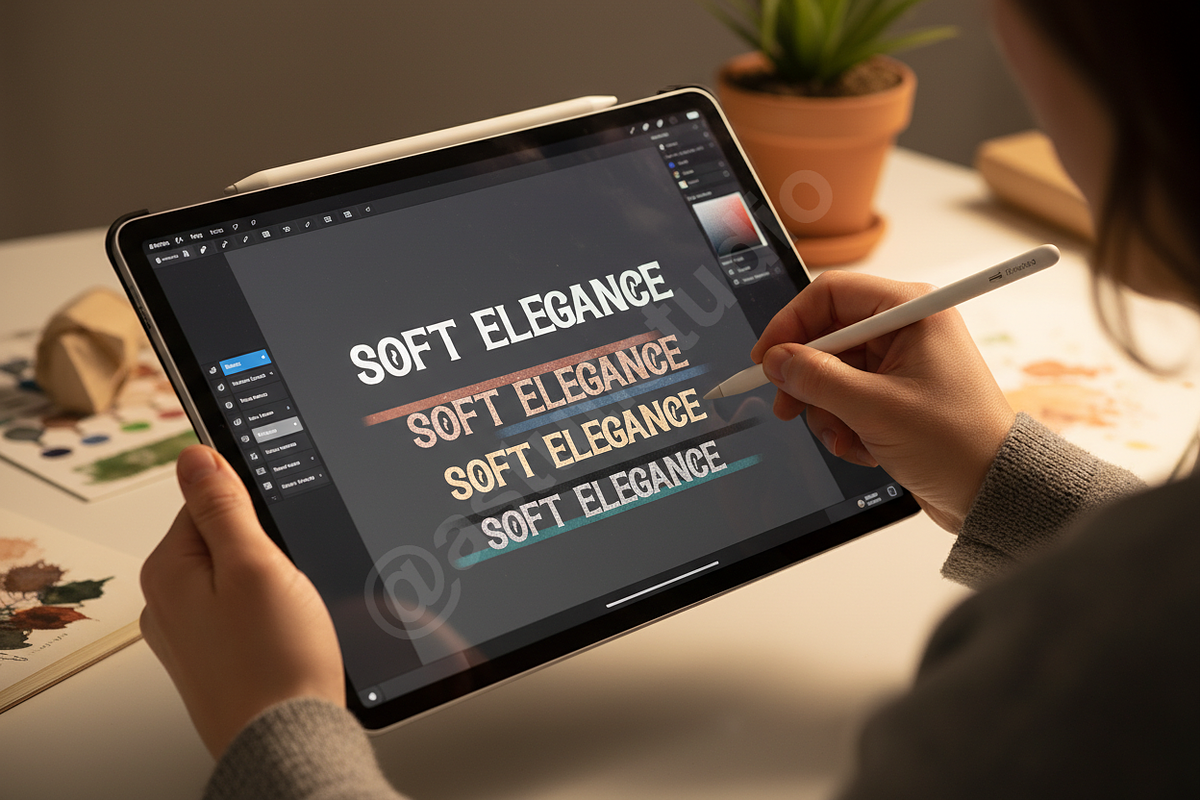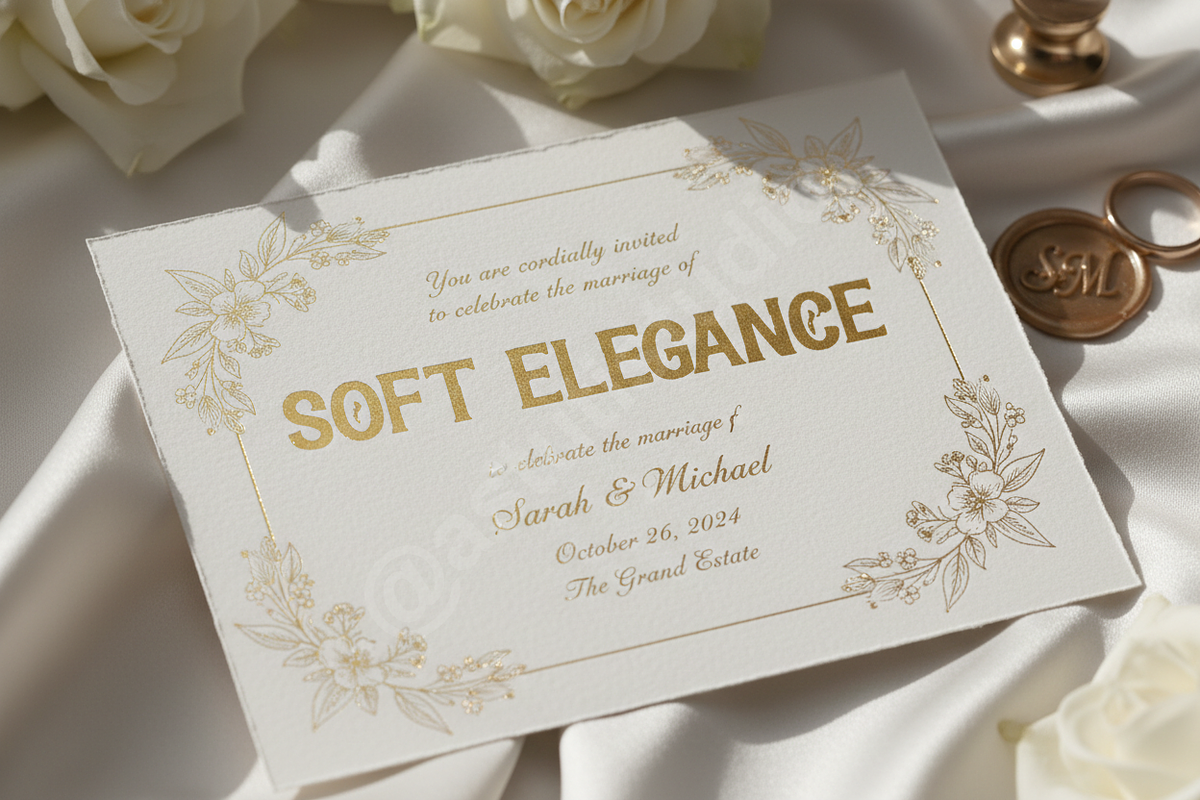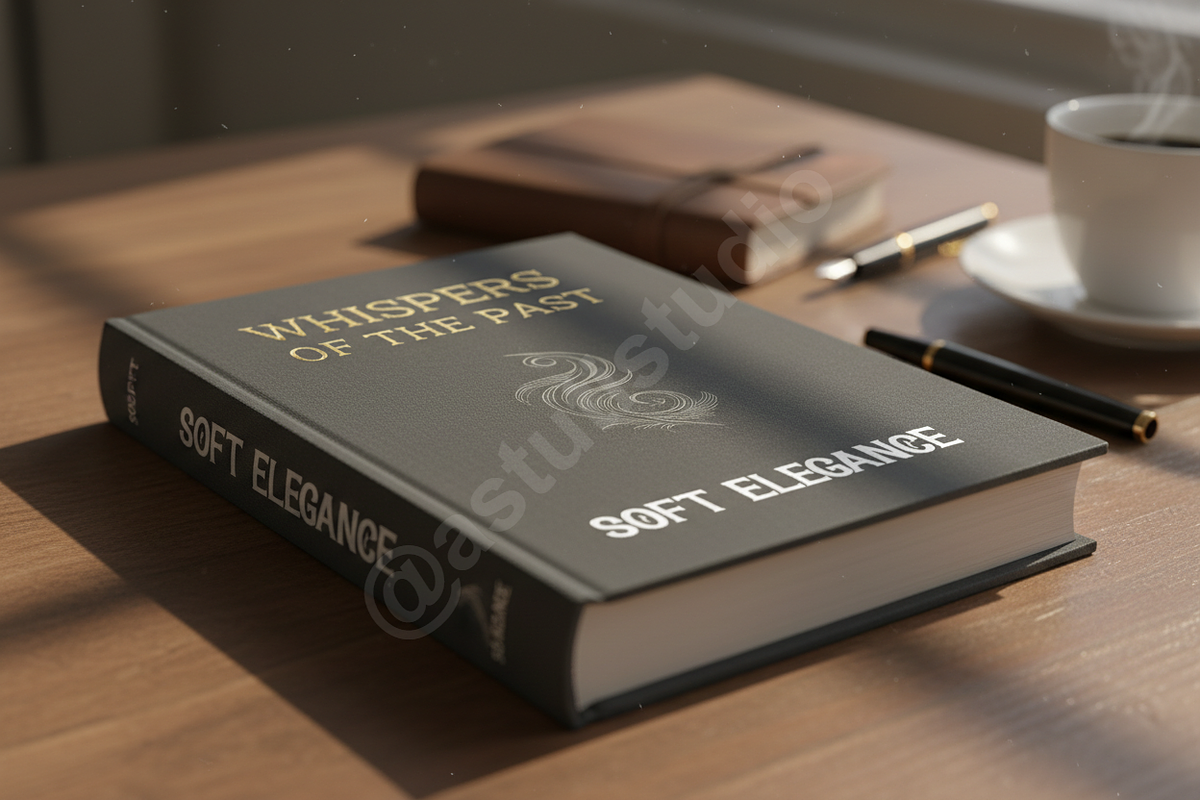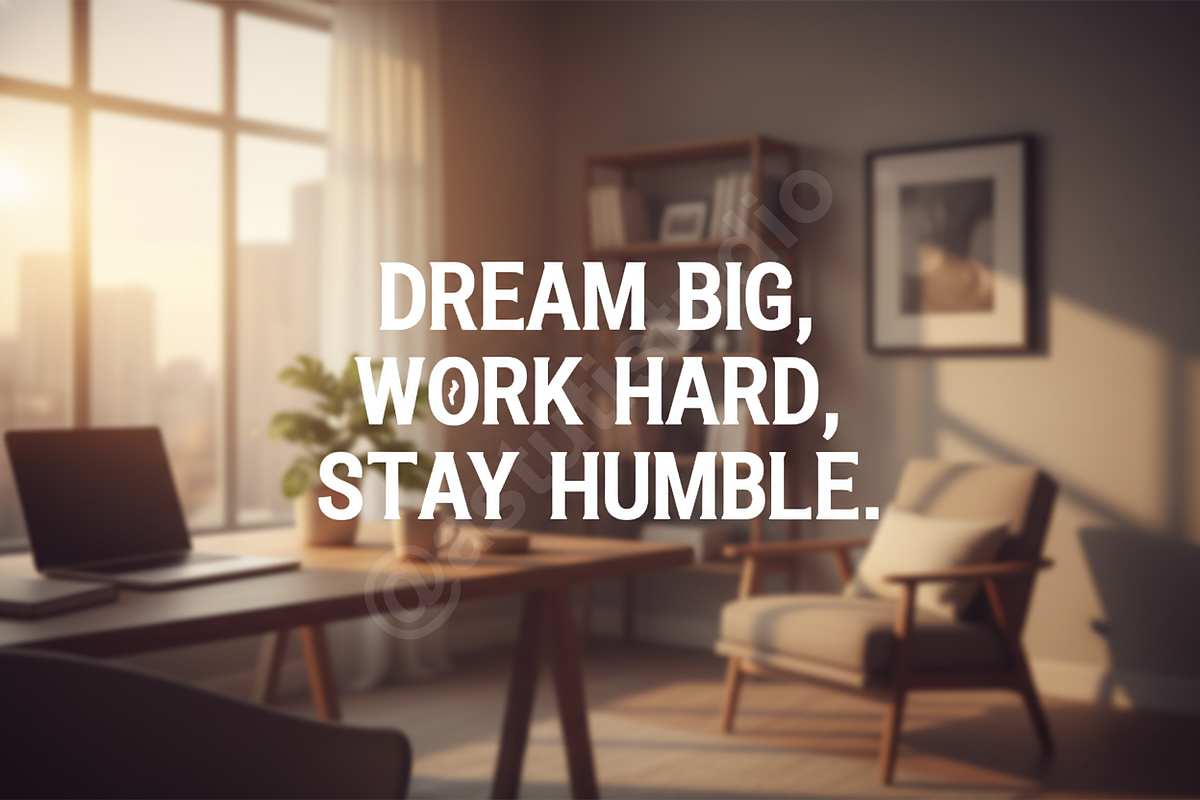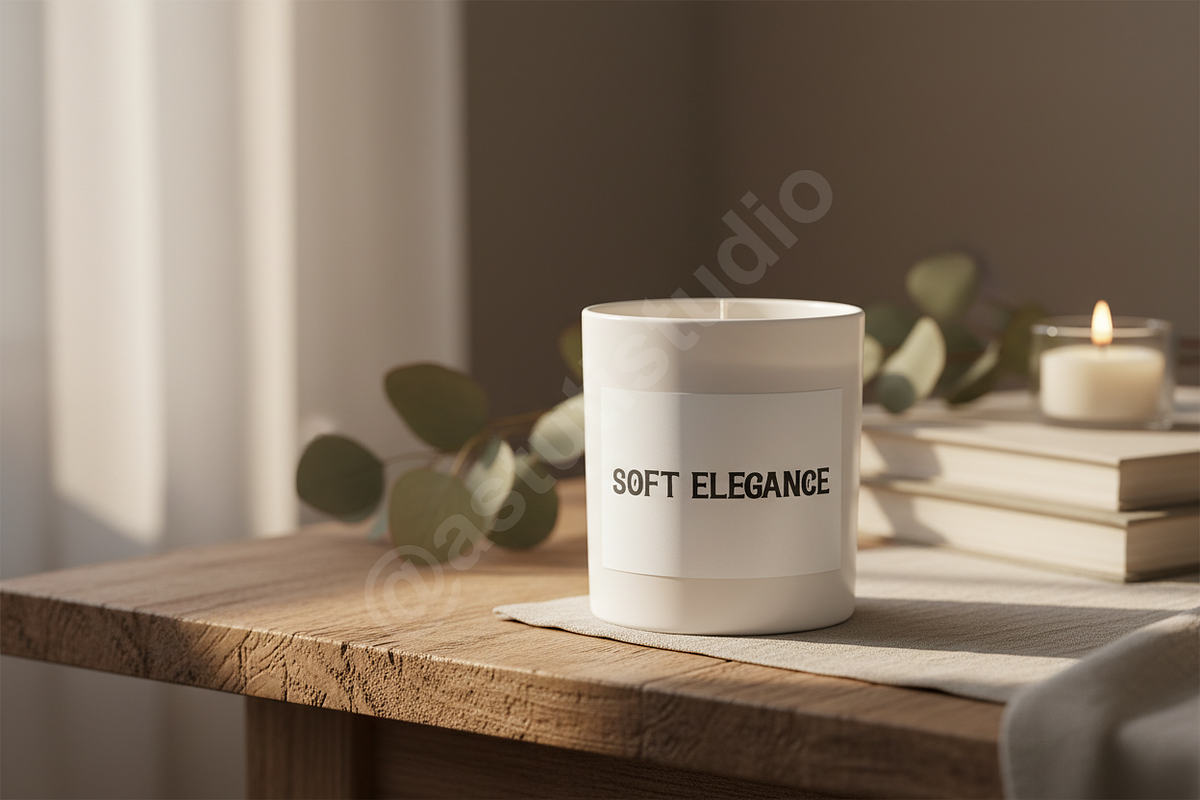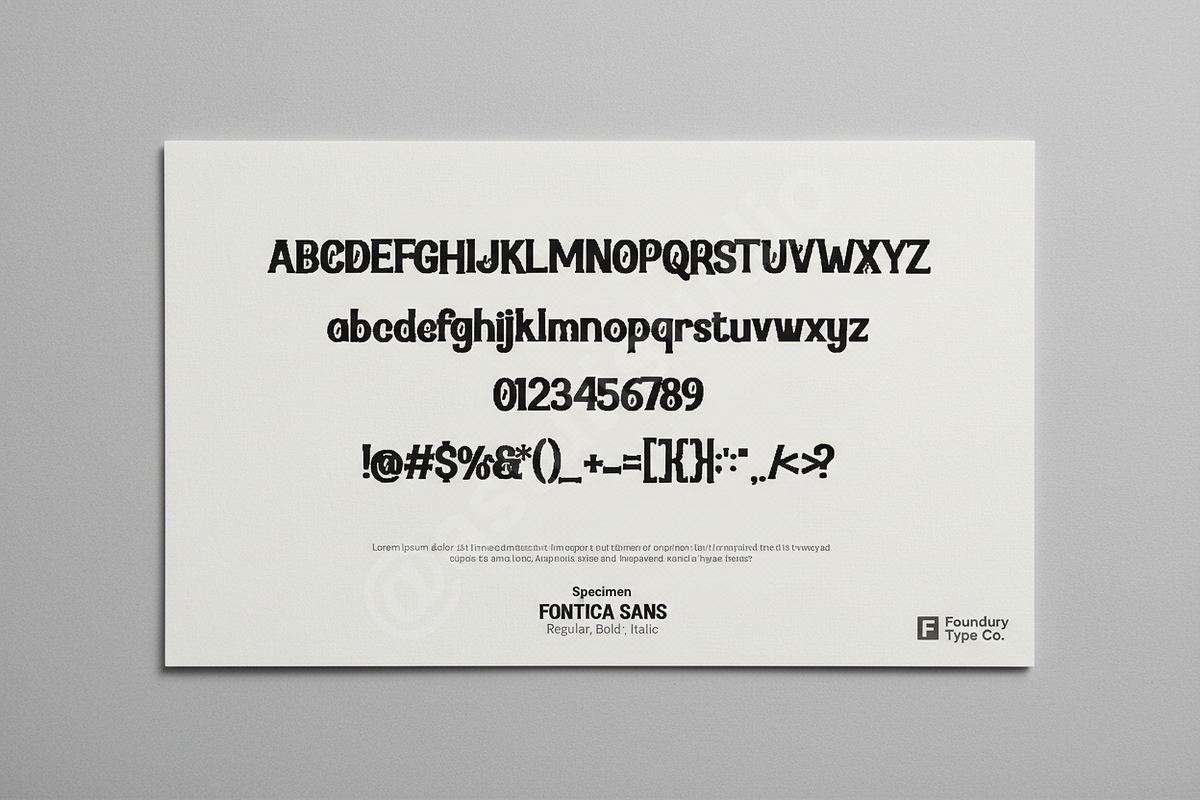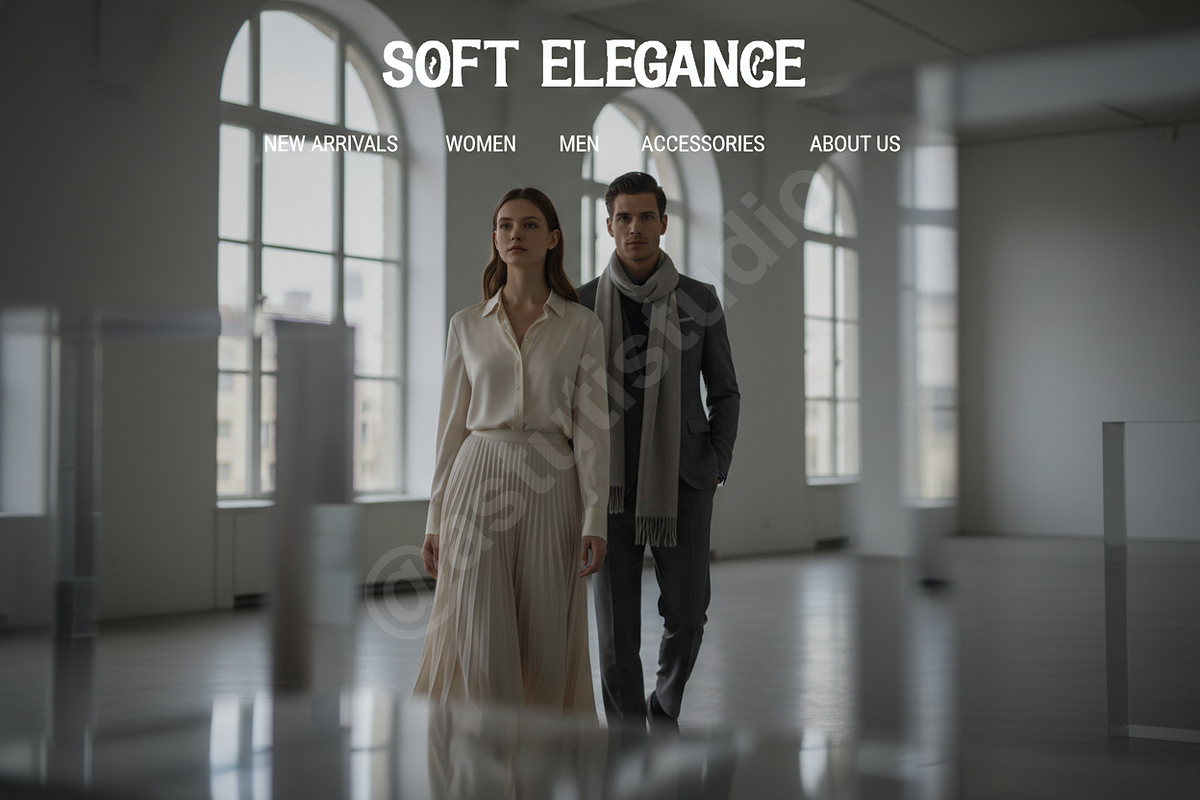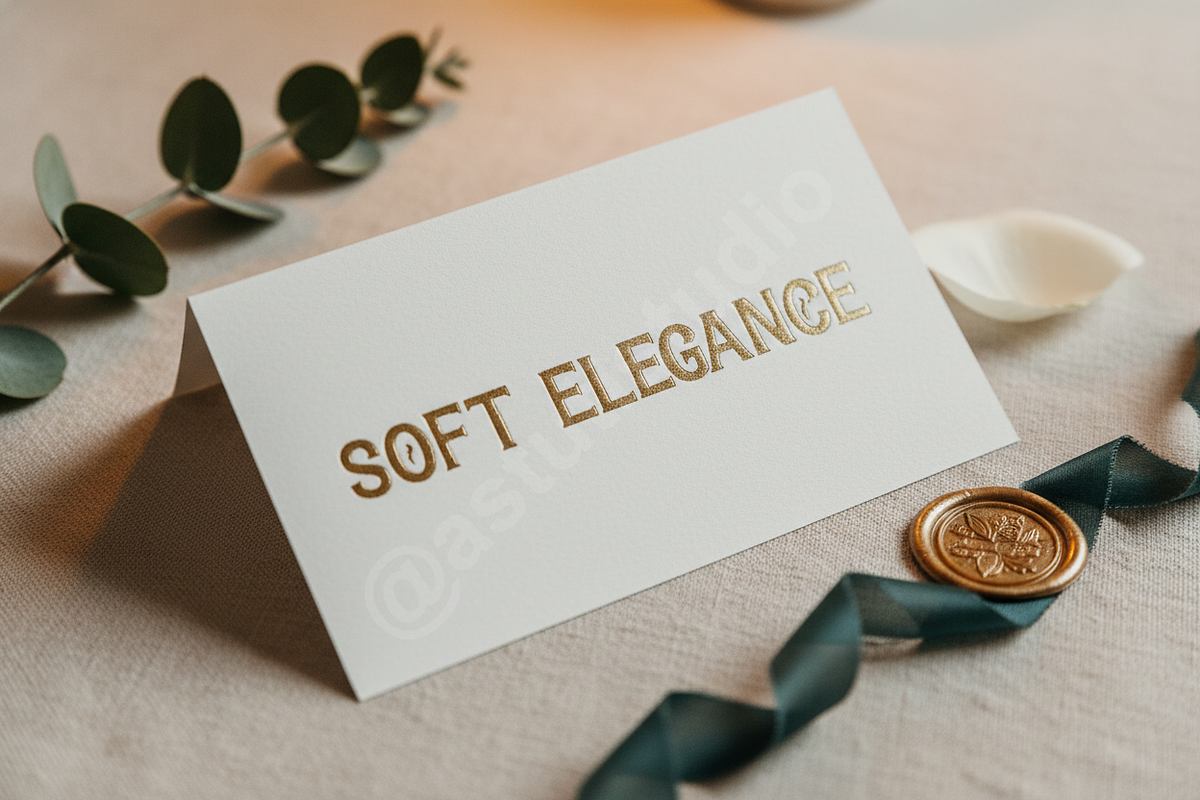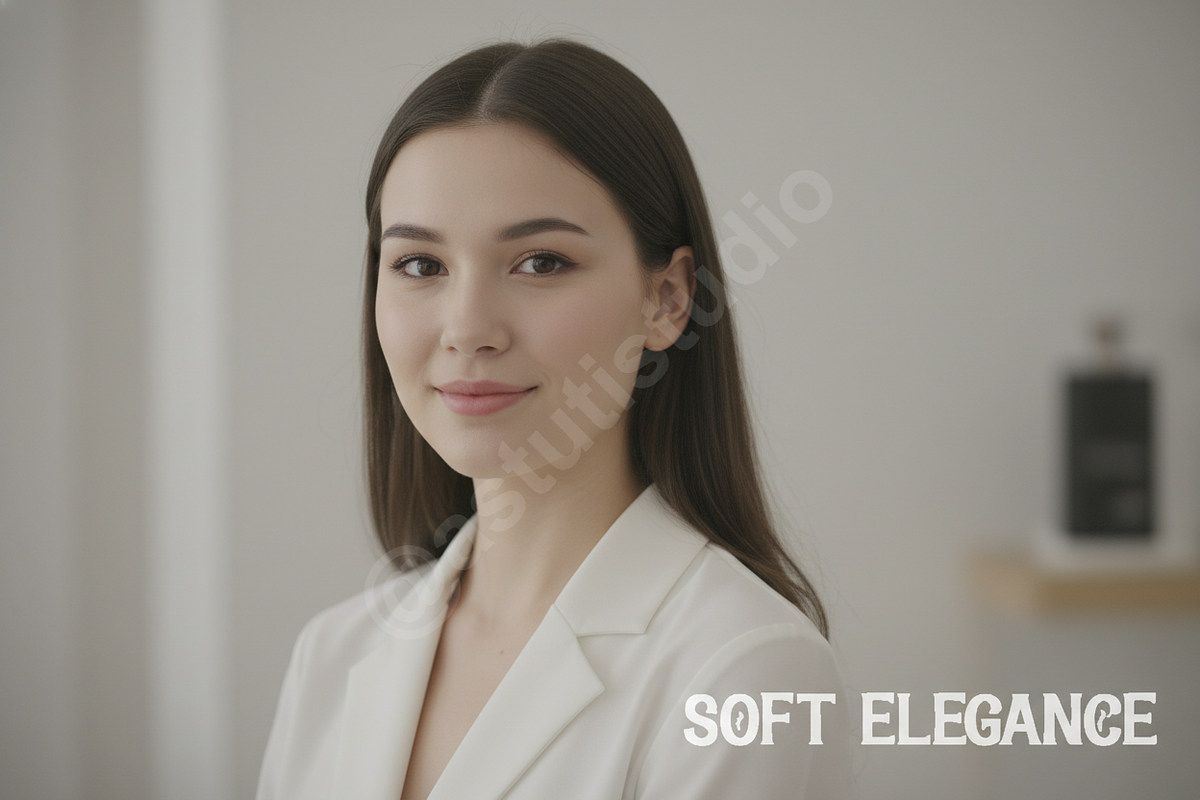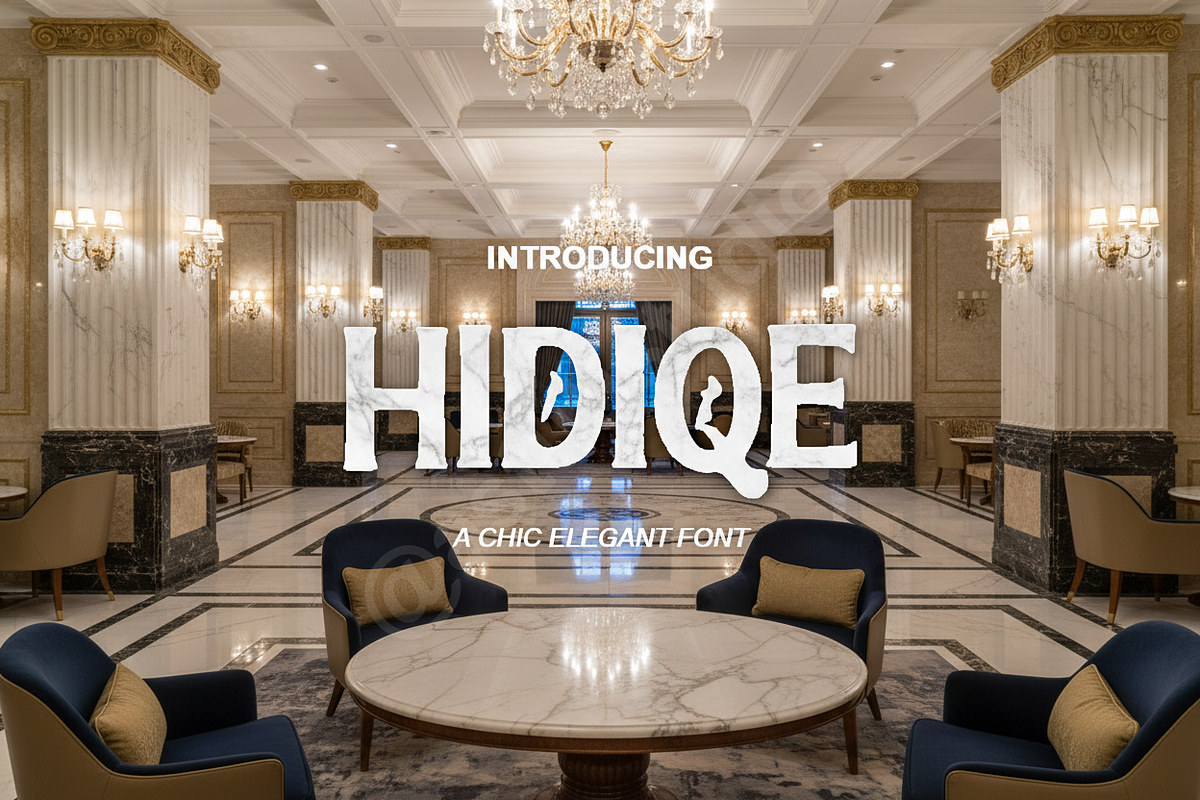
Hidiqe - Elegant Modern Serif Typefa
Hidiqe | A Timeless Serif Typeface
Elevate your creative projects with Hidiqe, a high-contrast serif typeface designed for the modern aesthetic. Crafted with precision and a touch of classic sophistication, Hidiqe brings a sense of effortless luxury to every design. Whether you are building a boutique brand identity or designing a high-fashion editorial, this font provides the perfect balance of character and readability.
Ideal Applications
- Luxury Branding and Logos
- Editorial Layouts and Magazine Design
- High-End Packaging
- Social Media Graphics
- Wedding Stationery and Invitations
- Clean, high-contrast serif letterforms
- Unique stylistic ligatures for custom looks
- Full multilingual character support
- Punctuation and numerical sets
- Optimized for both print and digital displays